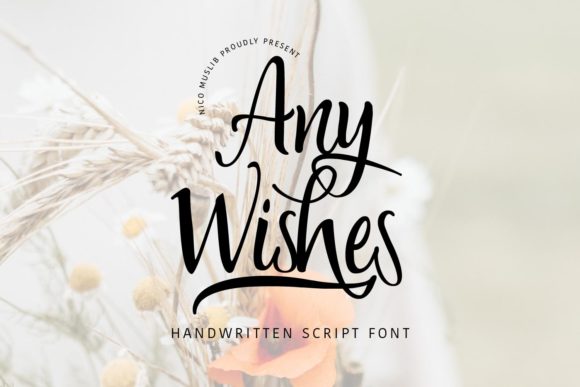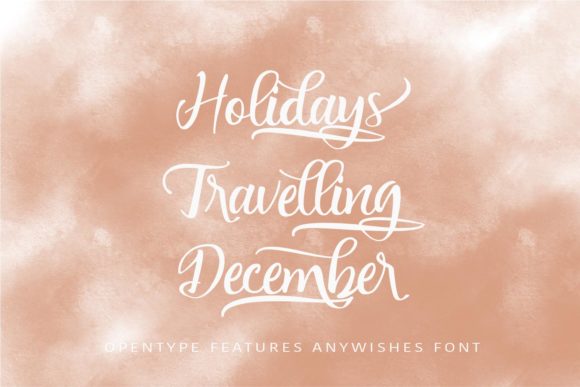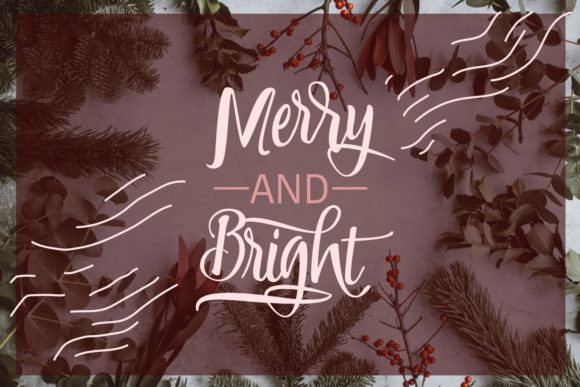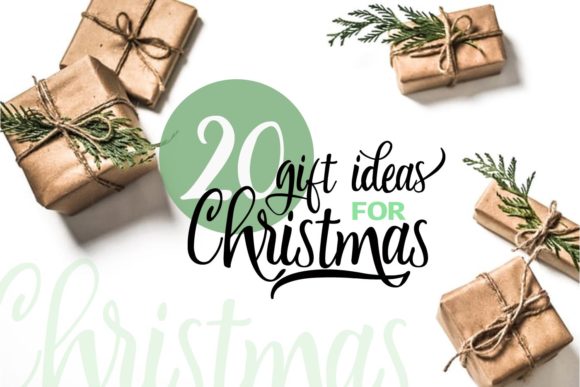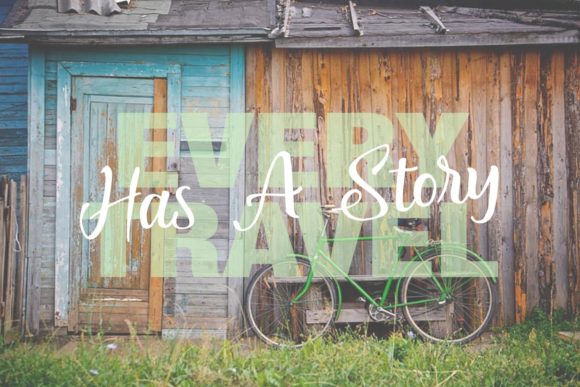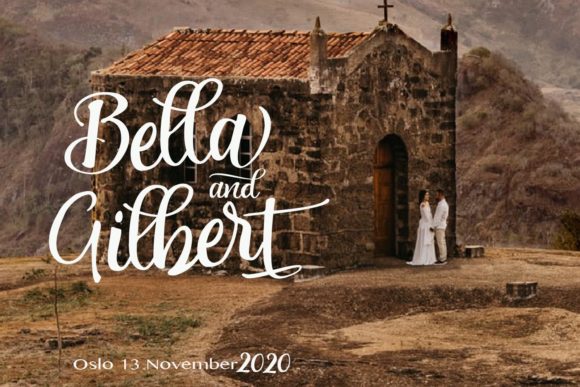
About Any Wishes Font
Any Wishes is a sweet and cursive handwritten font. This gentle font will look gorgeous on a variety of design ideas. It will add a joyful and romantic touch to each of your projects!